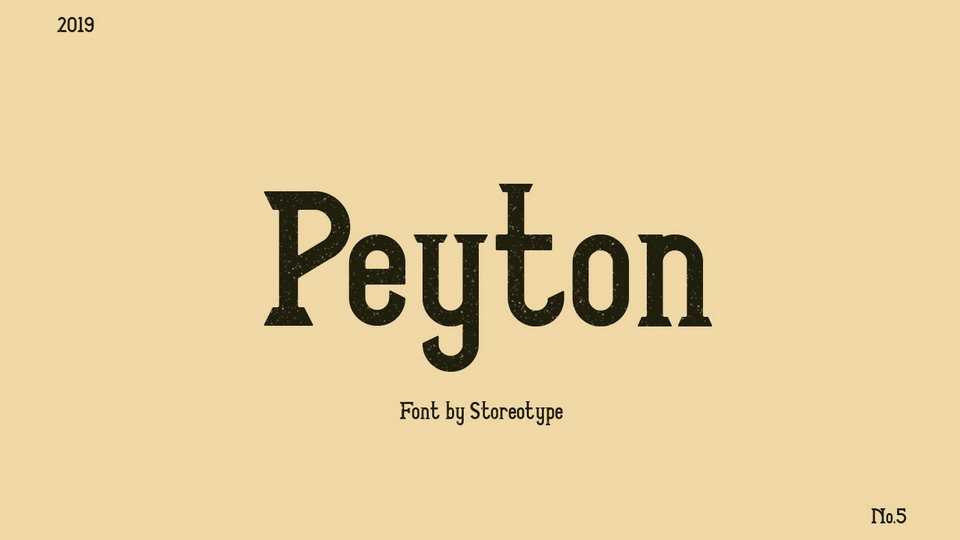
Download Peyton – a beautiful retro style font. It perfectly suits for vintage designs, posters, logos and labels, retro prints for t-shirts and apparel. This font contains full set of glyphs.